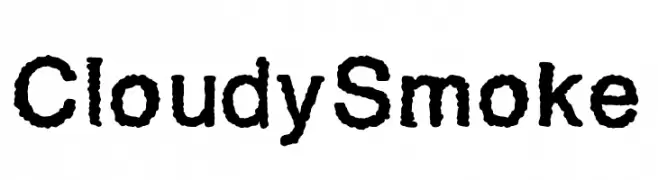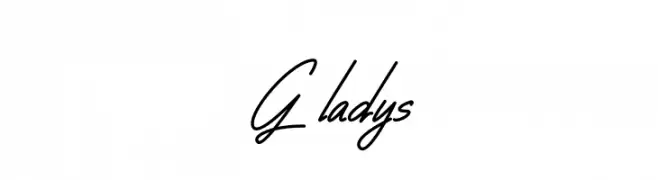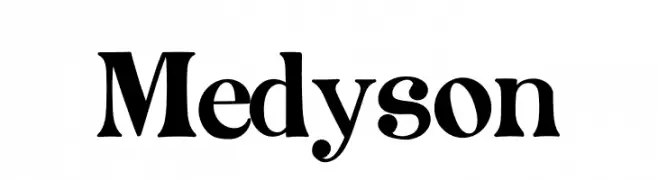
A textured, bold font with a smoky, organic appearance.
A bold, high-contrast serif font with dramatic flair and elegant curves.
A graceful and fluid script font with elegant, connected letters.
A sophisticated script font with elegant loops and swashes.
A bold, decorative font with a wood grain texture and hand-drawn style.
A bold, high-contrast serif font with dramatic and expressive character shapes.
A bold, dynamic script font with flowing, cursive characters.
A bold, geometric font with a futuristic and modern design.
A bold, decorative font with tall, narrow uppercase and rounded lowercase letters.
A playful, bubble-like font with bold, rounded characters.